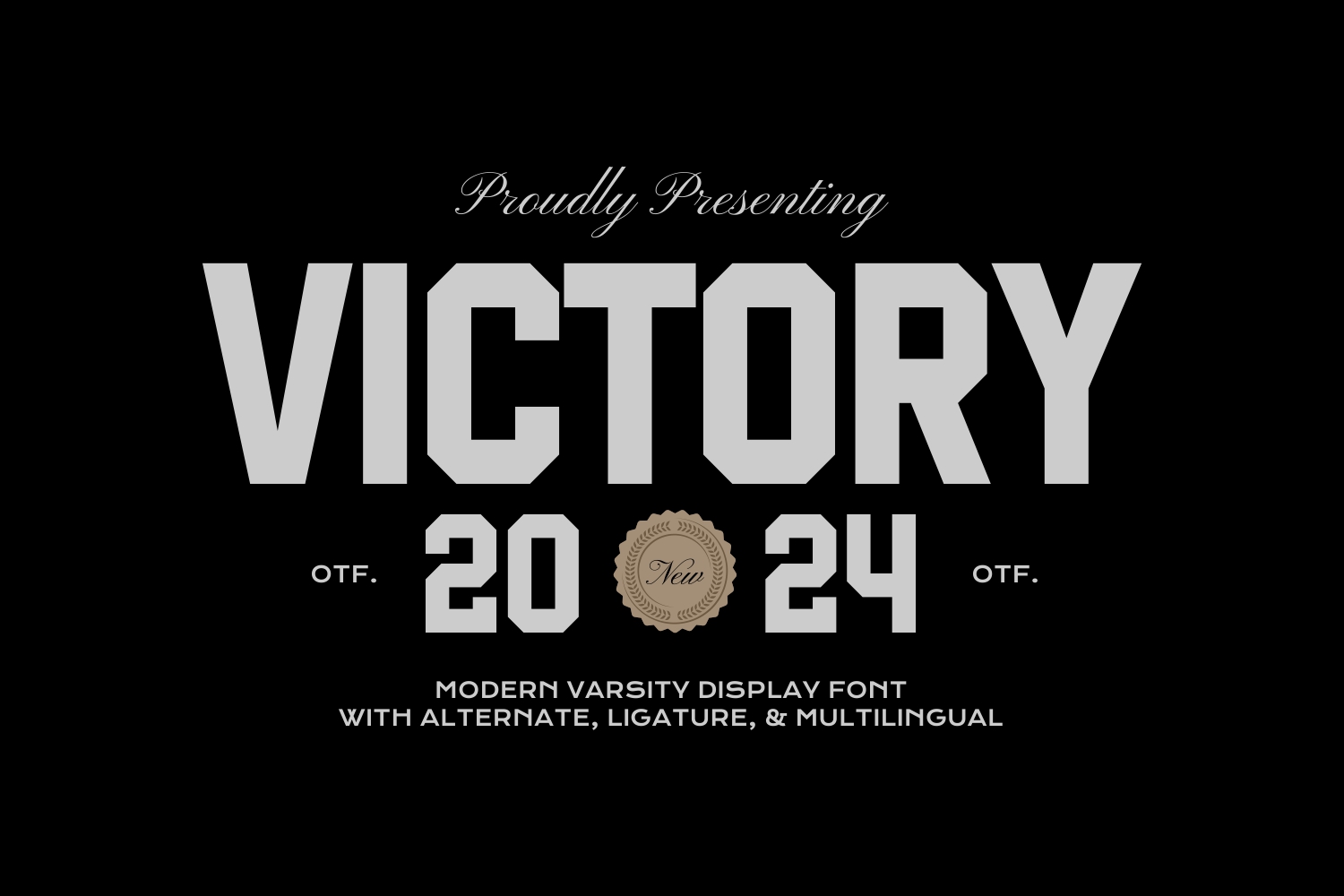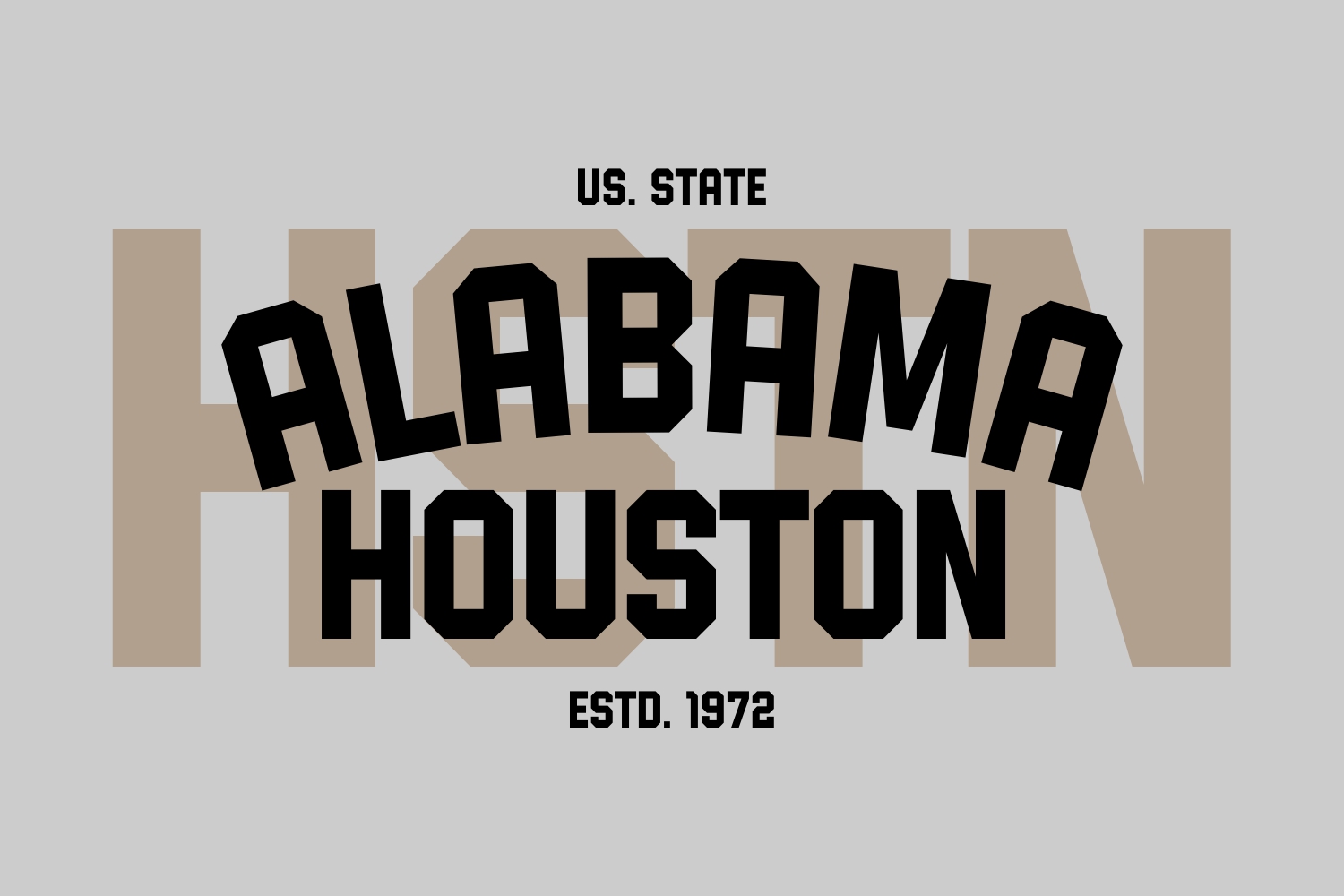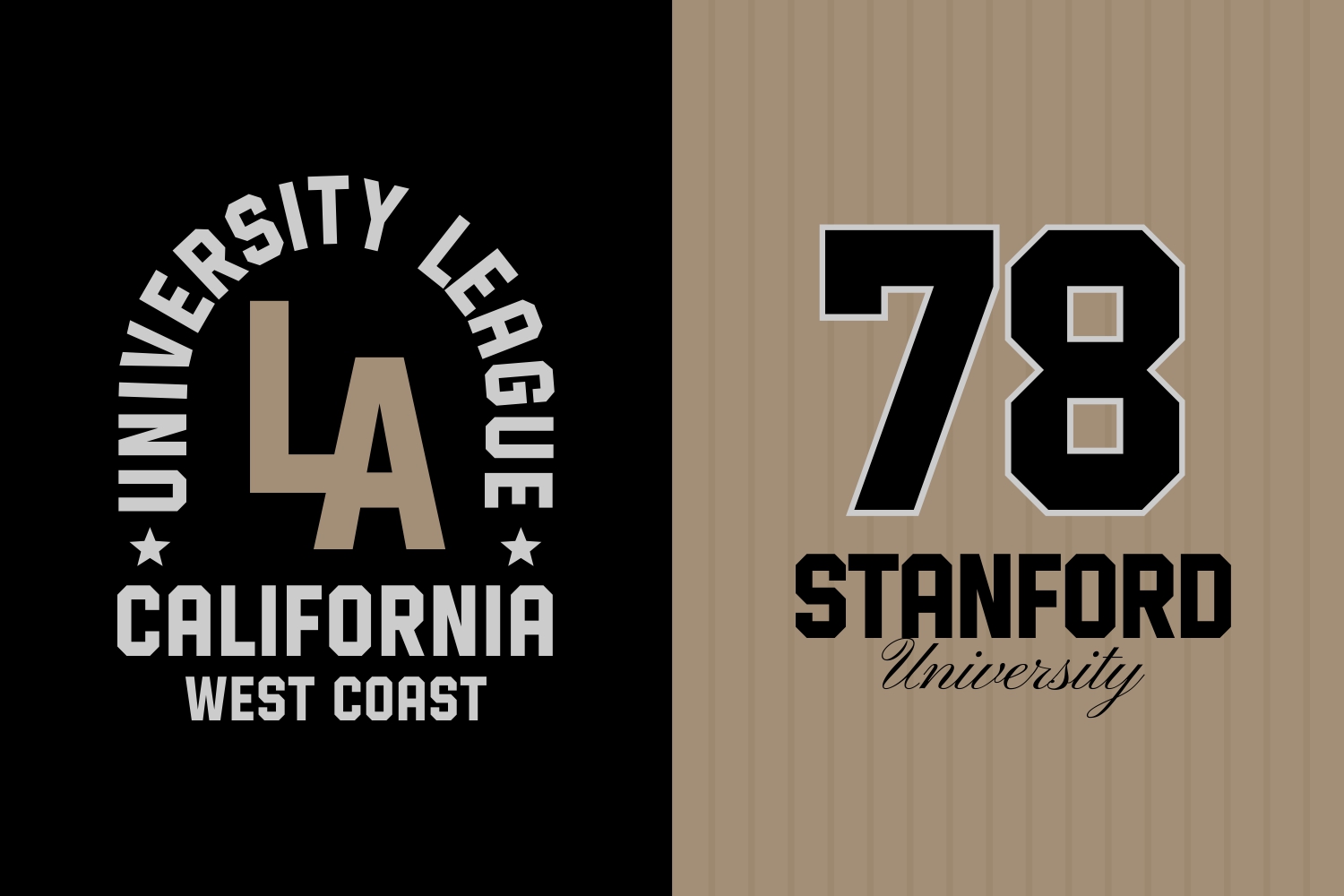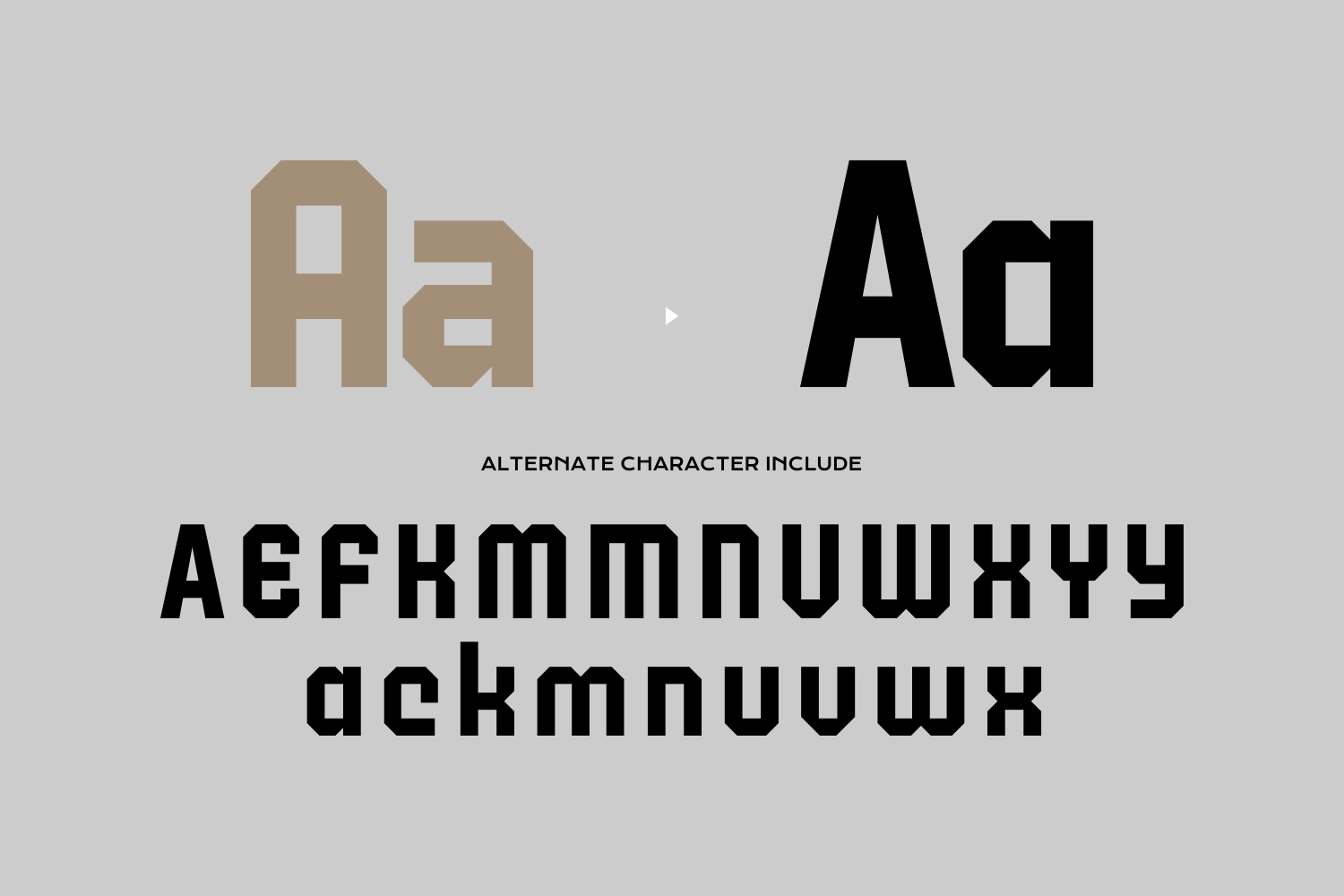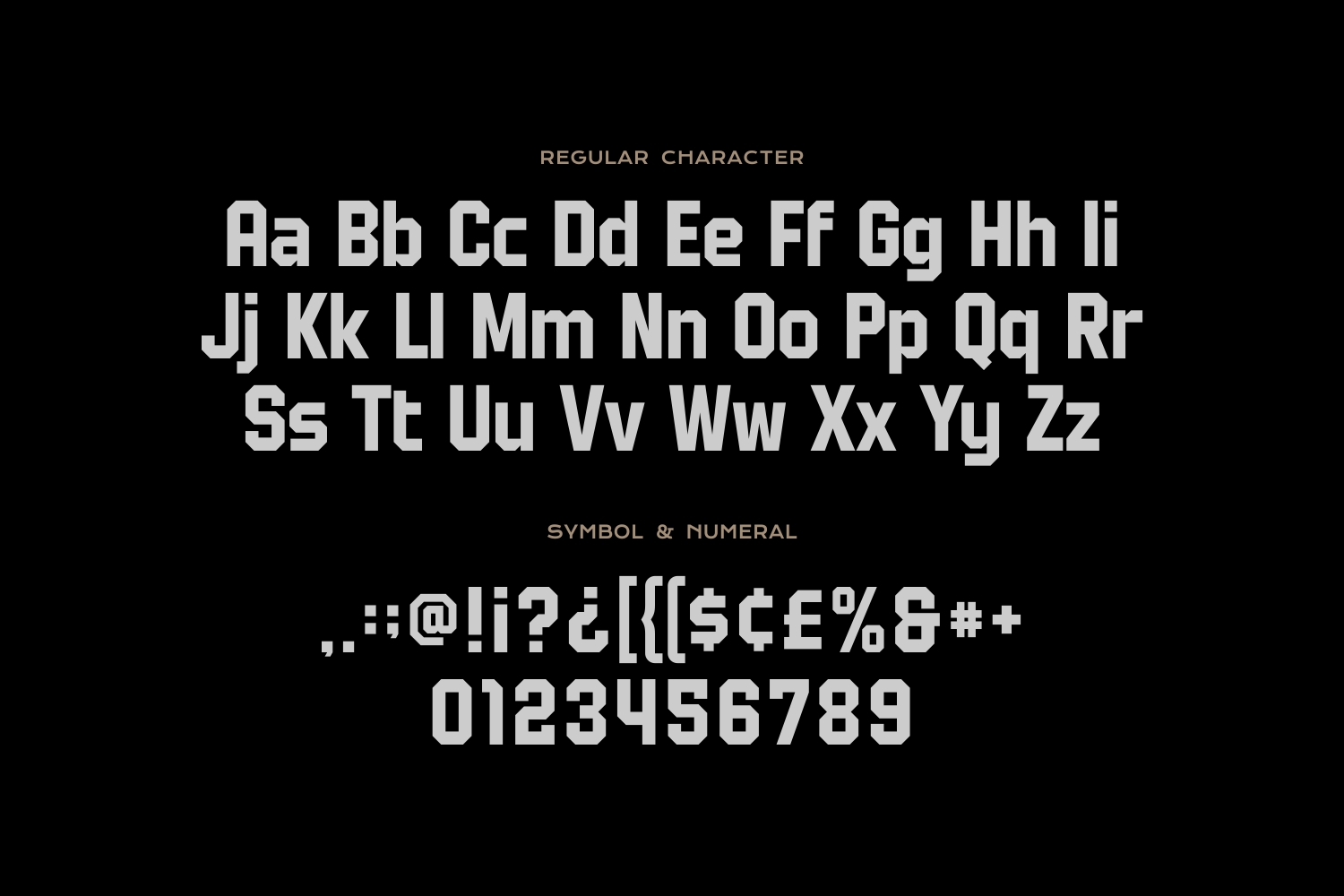
Victory is a bold and modern varsity display font inspired by classic college lettering and sports team aesthetics. With sharp geometric cuts and athletic character, it delivers a powerful presence that commands attention. Ideal for sports jerseys, campus merchandise, posters, and team branding, Victory gives your design a sense of pride, energy, and authority.
Packed with alternate characters, ligatures, and multilingual support, Victory allows for flexible design applications while maintaining a bold and structured look. Whether you’re creating a vintage sports logo, event poster, or collegiate apparel, this font offers everything you need to bring competitive spirit into your typography.
Victory
Warisand Studio